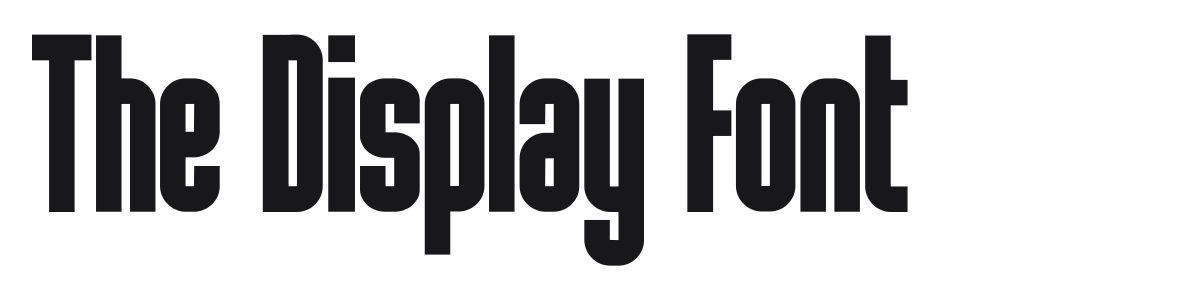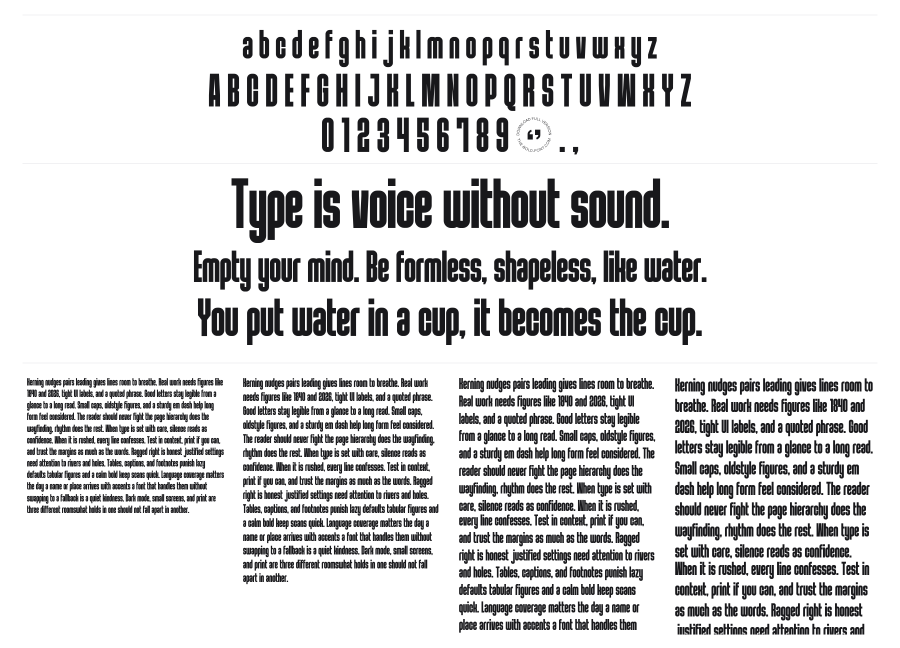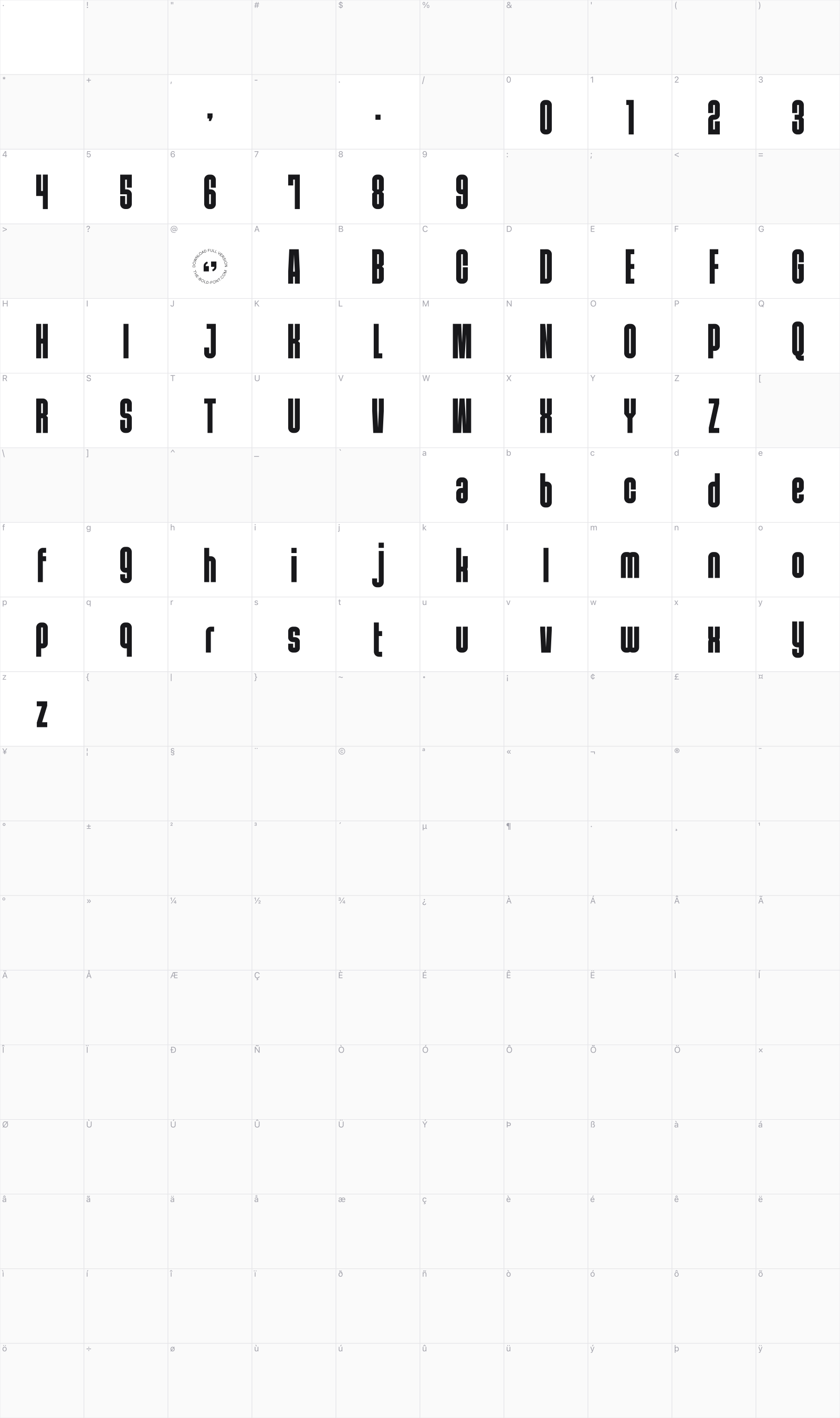
The Display Font
The Display Font is a heavy, ultra-condensed grotesque sans built for maximum visual punch at headline sizes. Its compressed proportions and near-monoweight strokes create a dense, solid typographic mass that commands attention on posters, covers, and large-format work. The design channels classic compressed gothic energy with a clean, contemporary edge.